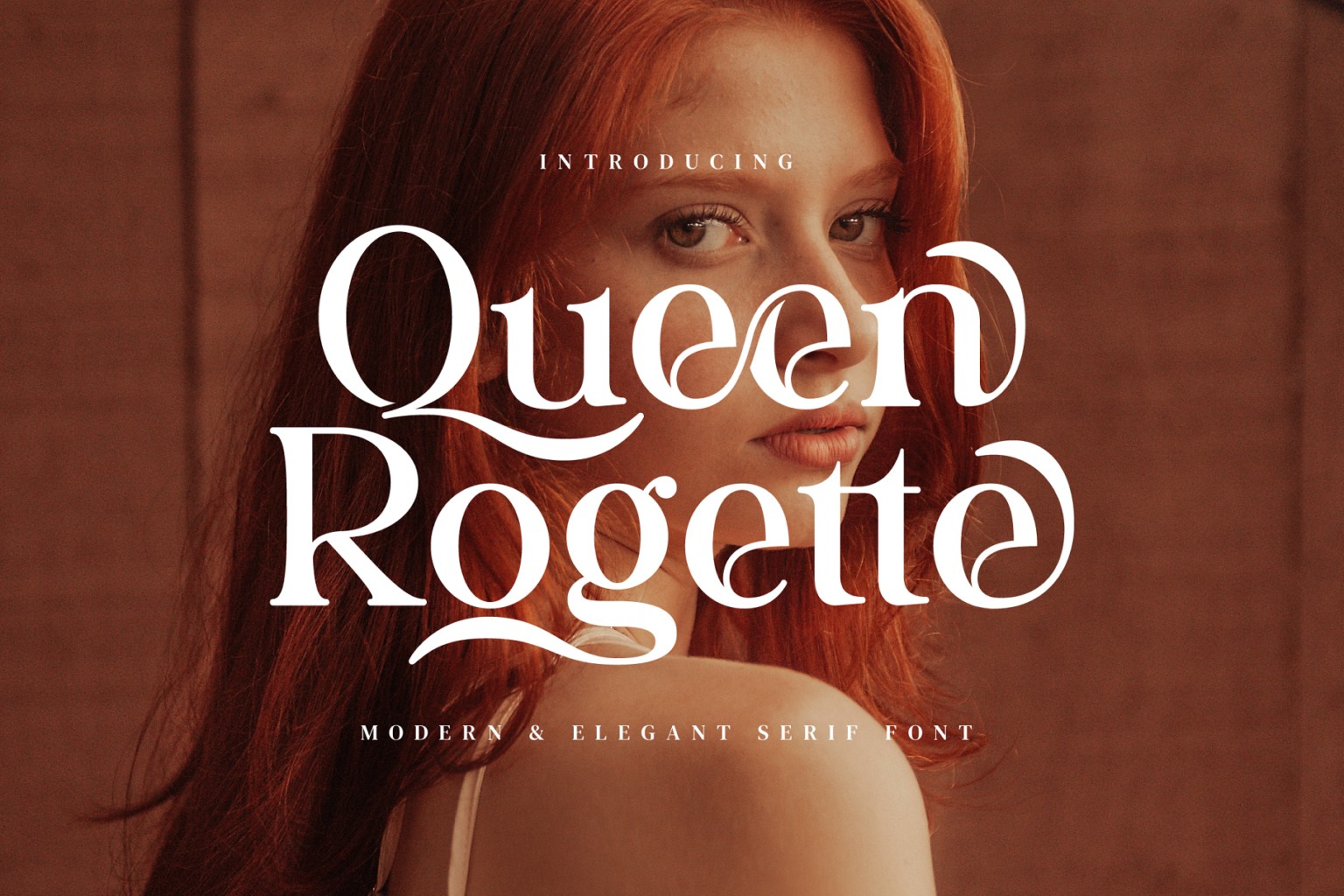
Queen Rogette – Modern Serif Font
Queen Rogette – Modern Serif Font brings a balanced structure and contemporary look, making it suitable for both digital and print design. Queen Rogette Stylish Ligature Typeface, inspired by the famous minimalist logo perfect for the purposes of designing templates, brochures, videos, advertising branding, logos and more.
– Ligatures